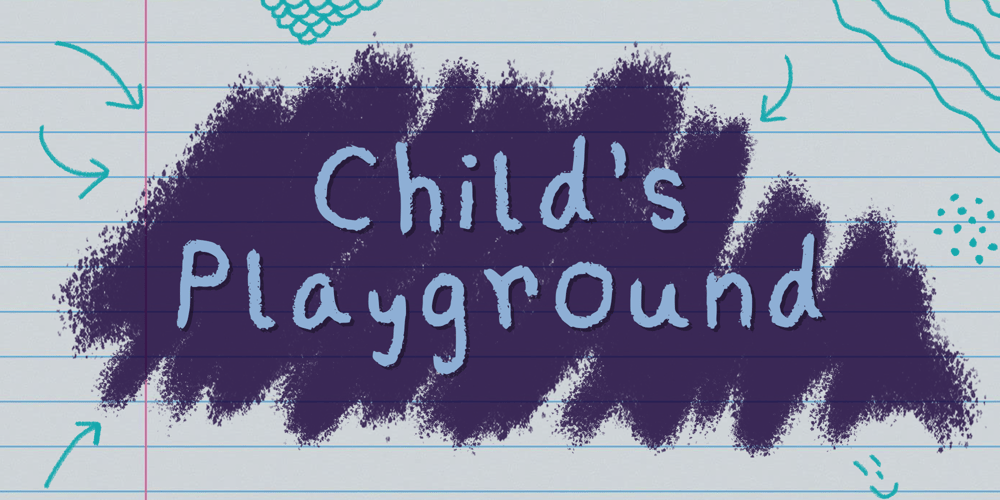
Childs Playground
Childs Playground font
Childs Playground Font Family was designed by Kim Ariana and published by Kim Ariana Art Shop. Childs Playground contains 2 styles and family package options. A child-like font perfect for conveying a fun and young atmosphere. This font is perfect for schools, teachers, announcements for children, social media posts for events made for kids, and more! Child’s Playground is meant to emulate crayon-drawn writing that captures people’s eyes with the immediate familiarity of a child’s penmanship.